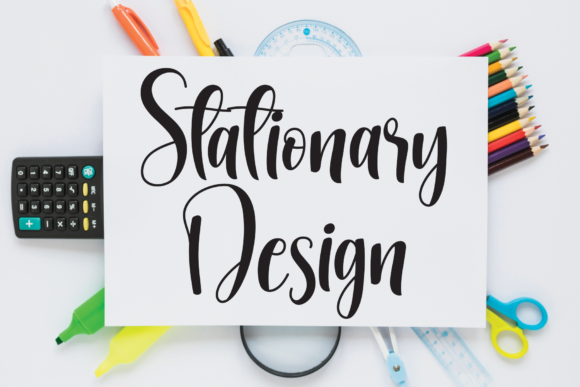
Christmas Melody Font
db-ku.com - Script & Handwritten -- Christmas Melody is a sweet, flowing and festive handwritten font. This gentle font will look gorgeous on a variety of design ideas. It will add a joyful and romantic touch to each of your projects!